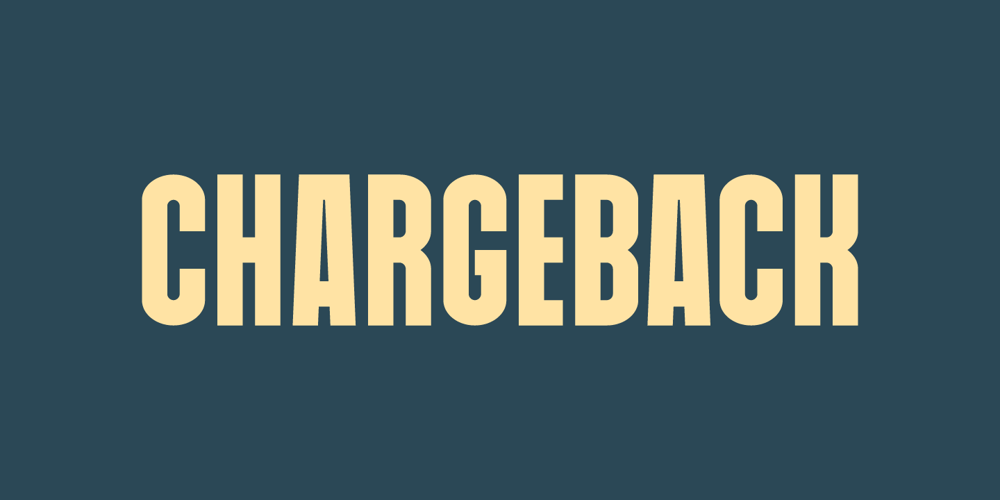
Chargeback Font Family was designed by Jakob Fischer and published by PizzaDude.dk. Chargeback contains 5 styles and family package options. Need a font for your headlines? Go for Chargeback!